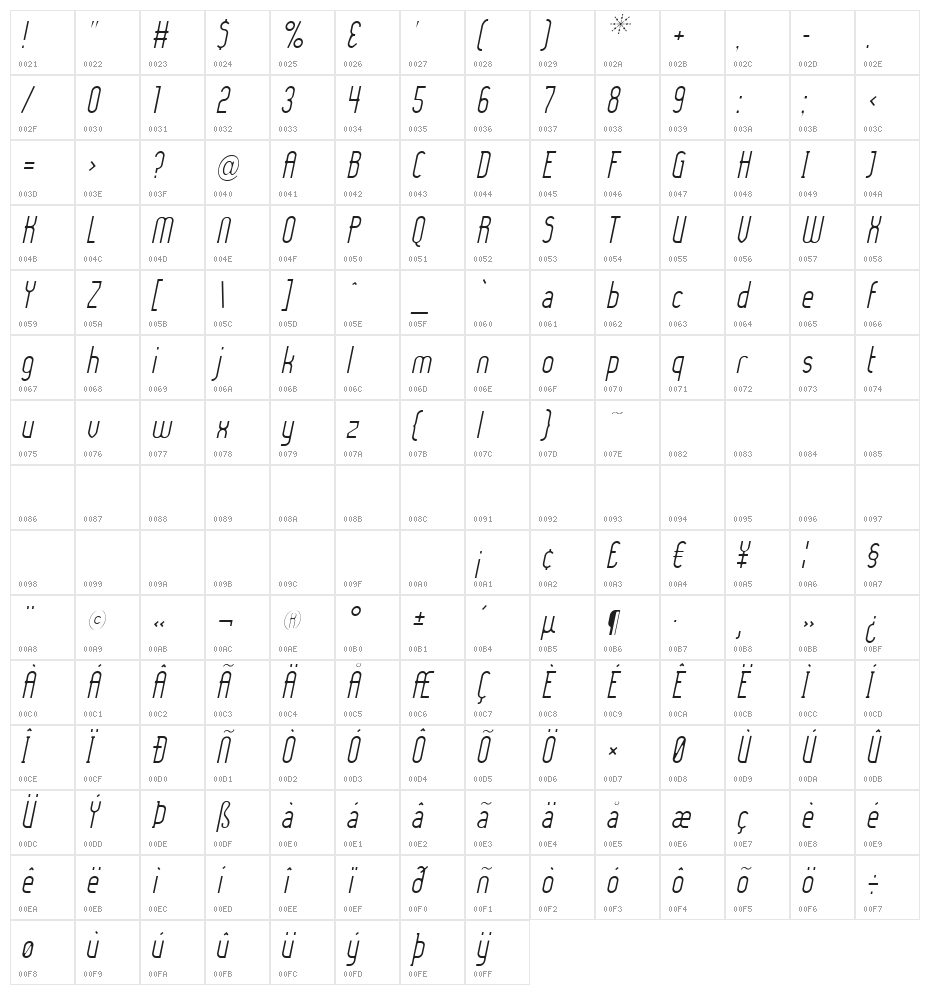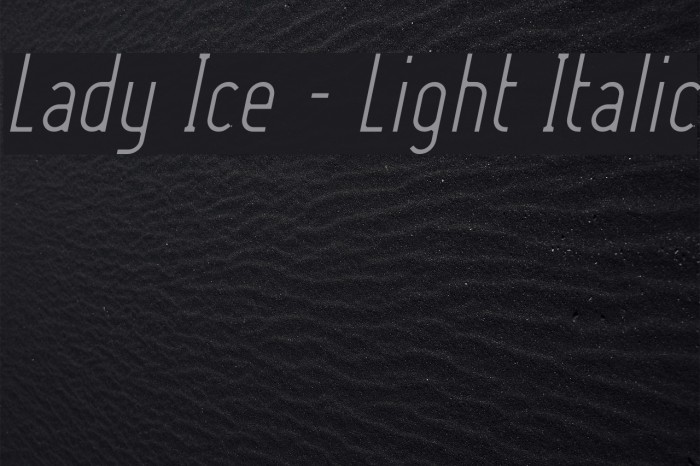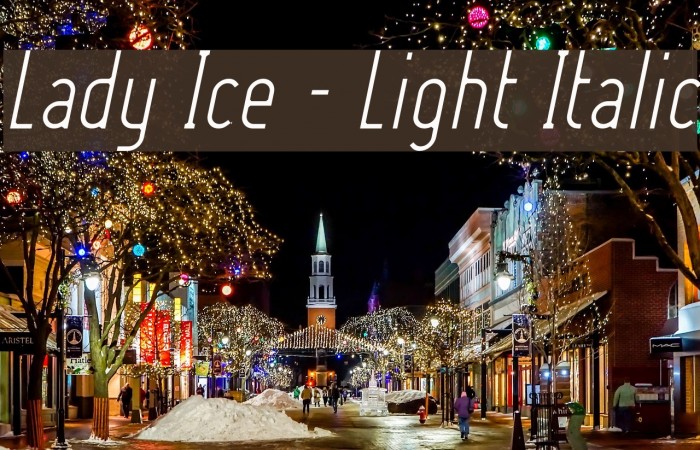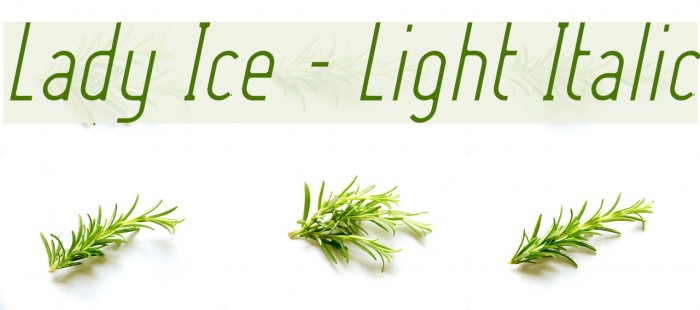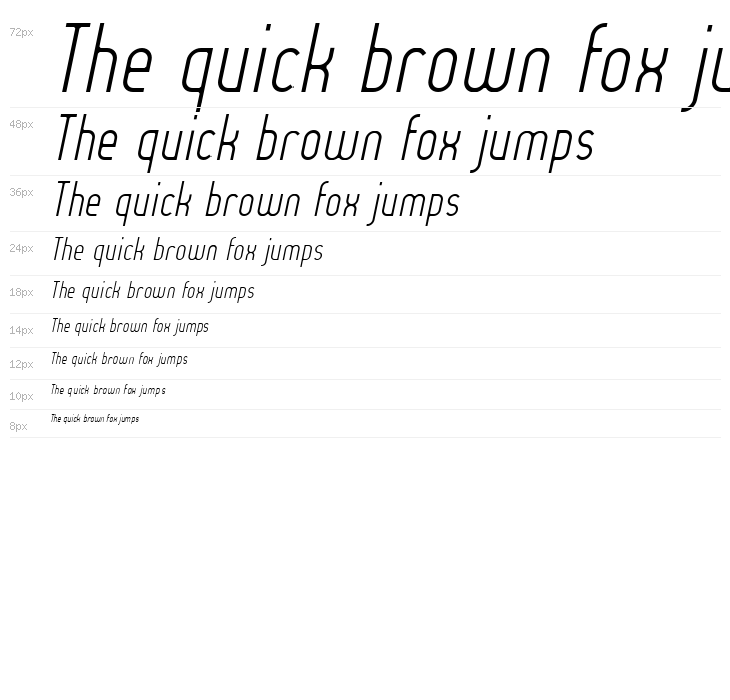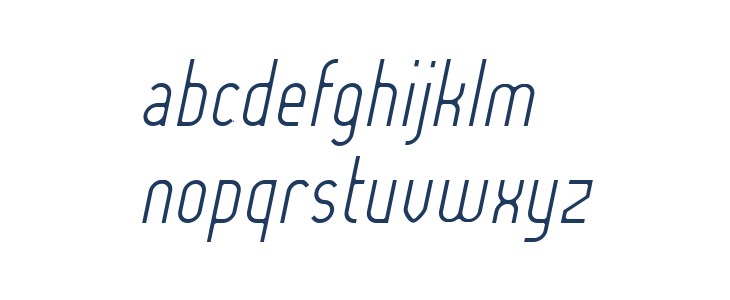
Lady Ice - Light Italic Font
Lady Ice - Light Italic Description
This font features a sleek and modern design with elongated, narrow characters that give it a distinctive, elegant appearance. The letters are slightly slanted, adding a dynamic and fluid feel to the text. The strokes are consistent and smooth, with a light weight that enhances readability while maintaining a stylish look. The font includes a full set of uppercase and lowercase letters, numbers, and a variety of special characters, making it versatile for different design needs. Its clean lines and contemporary style make it suitable for projects that require a touch of sophistication and modernity.